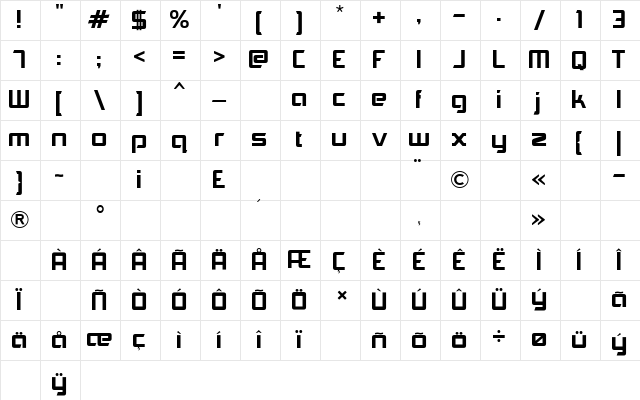
Akashi Regular
Foundry: High-Logic
Designer: Ed Merritt
Design Context for Akashi
Akashi is a composed and adaptable typeface that performs quietly and consistently across a wide range of design contexts.